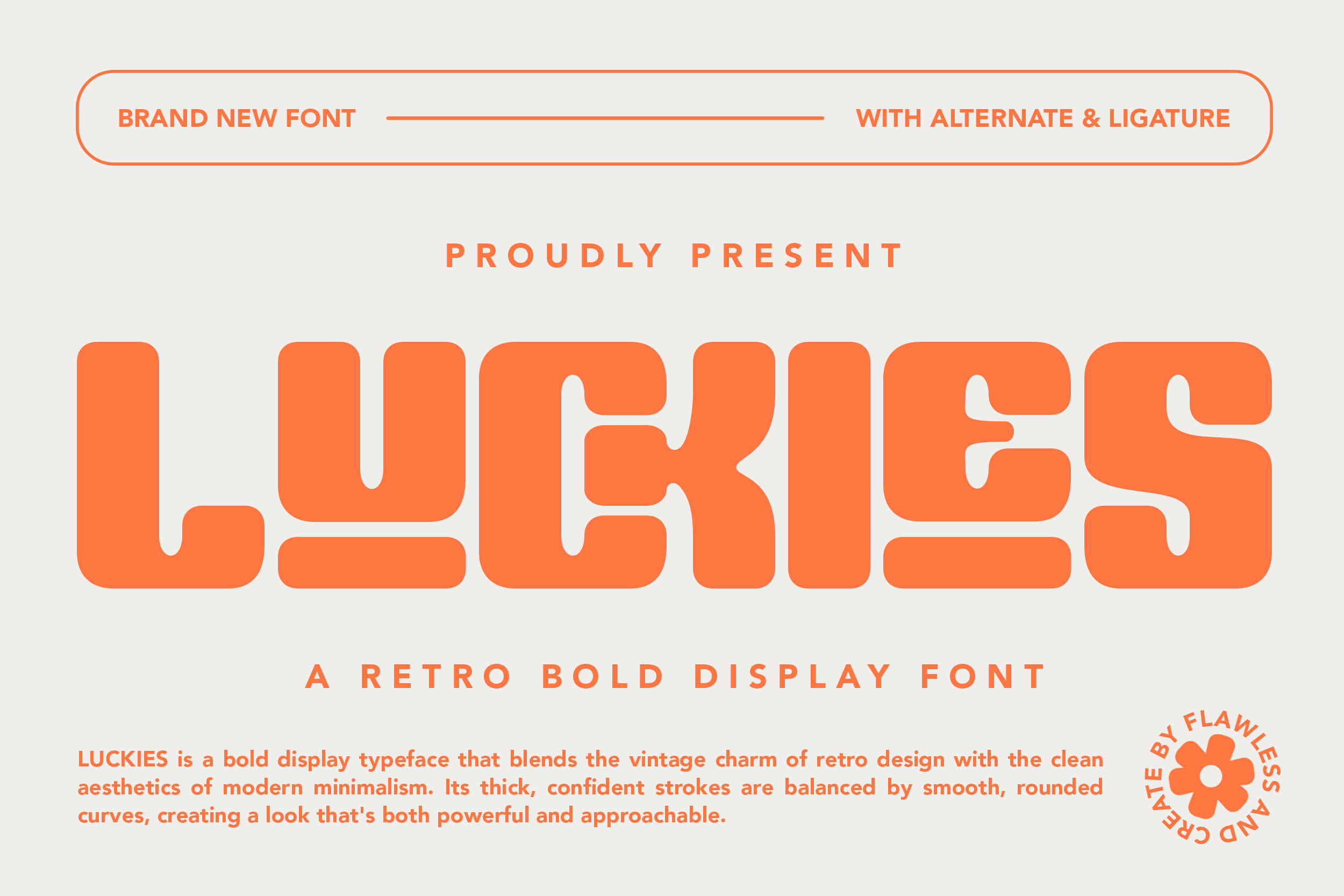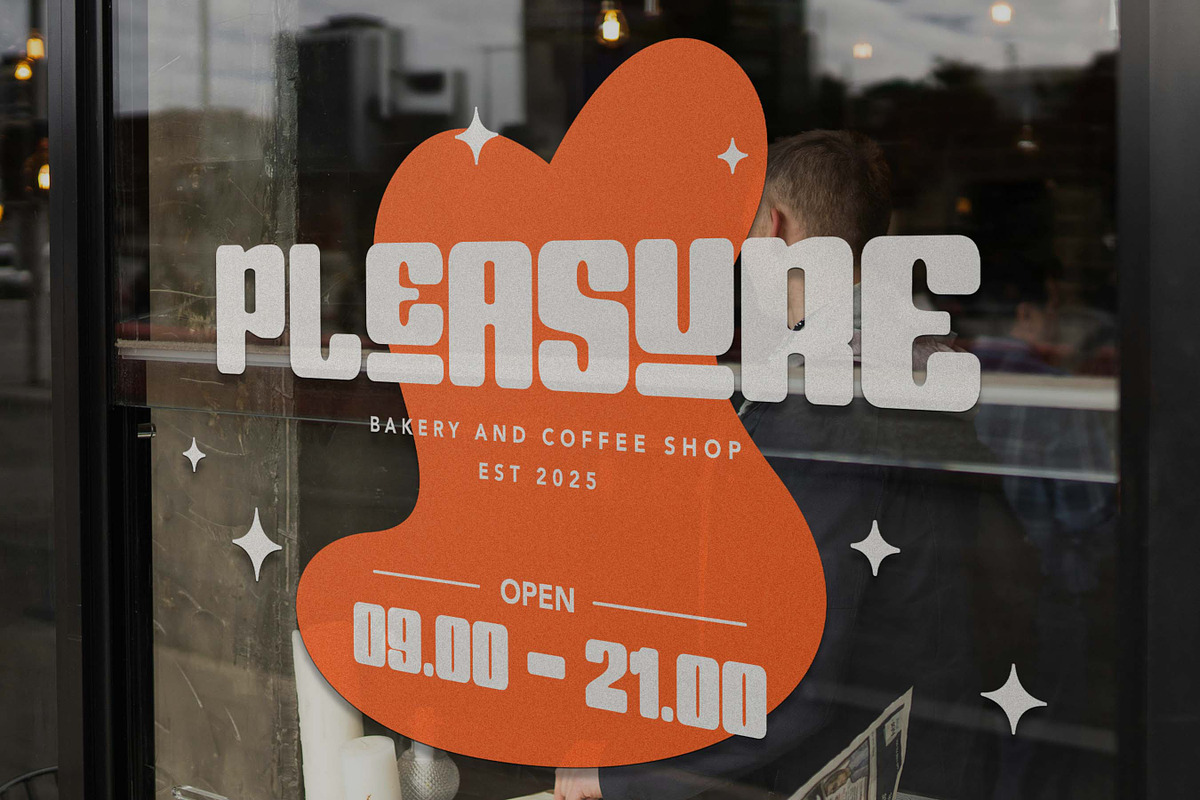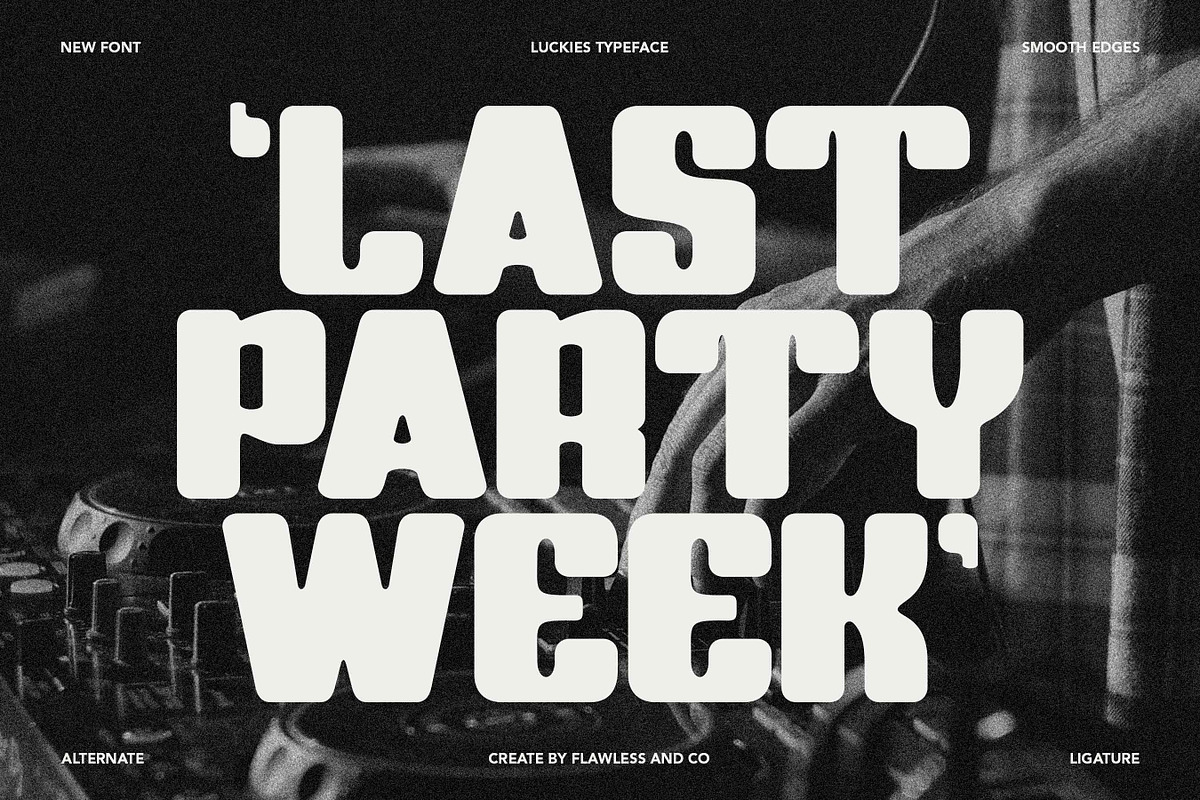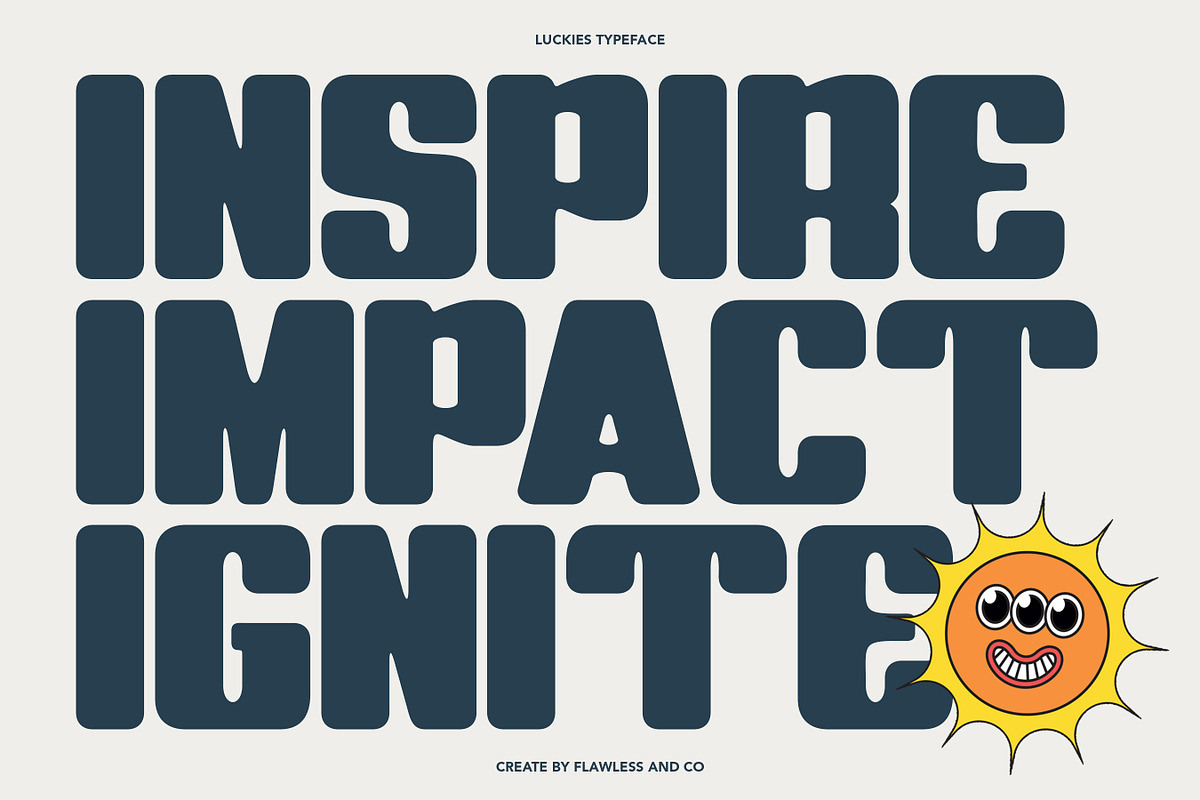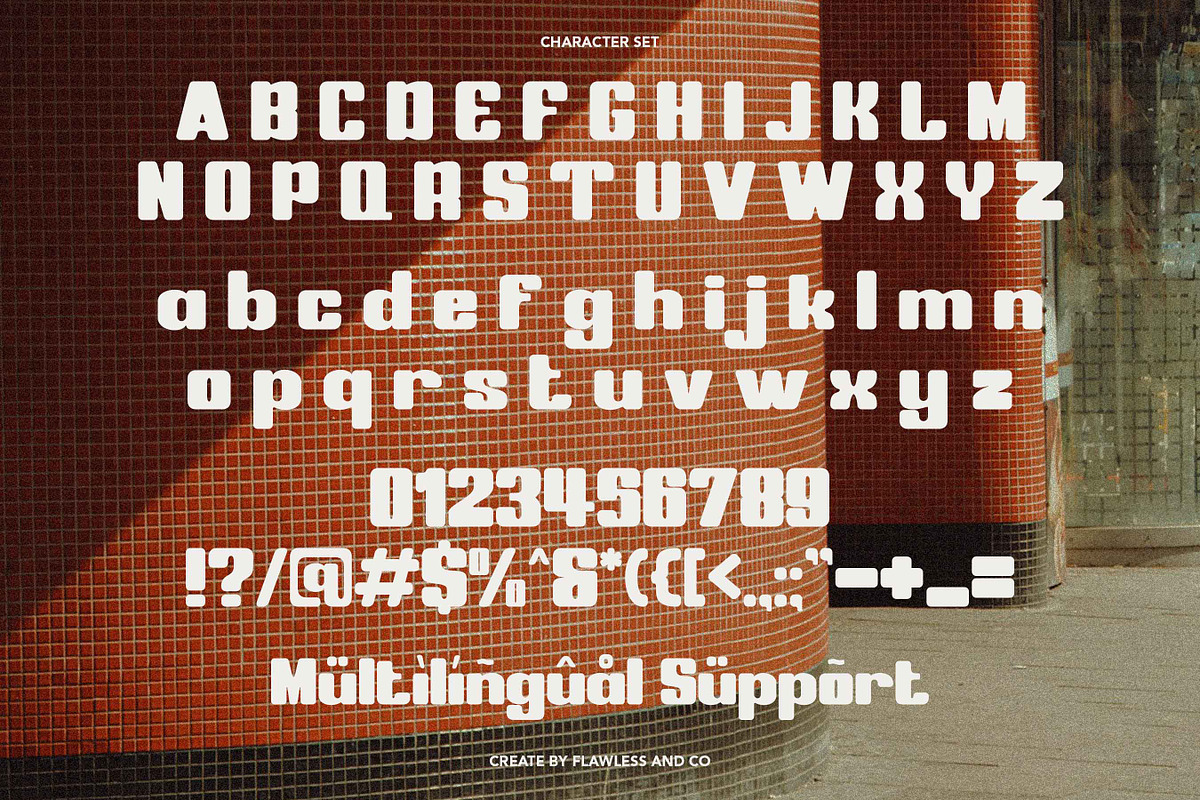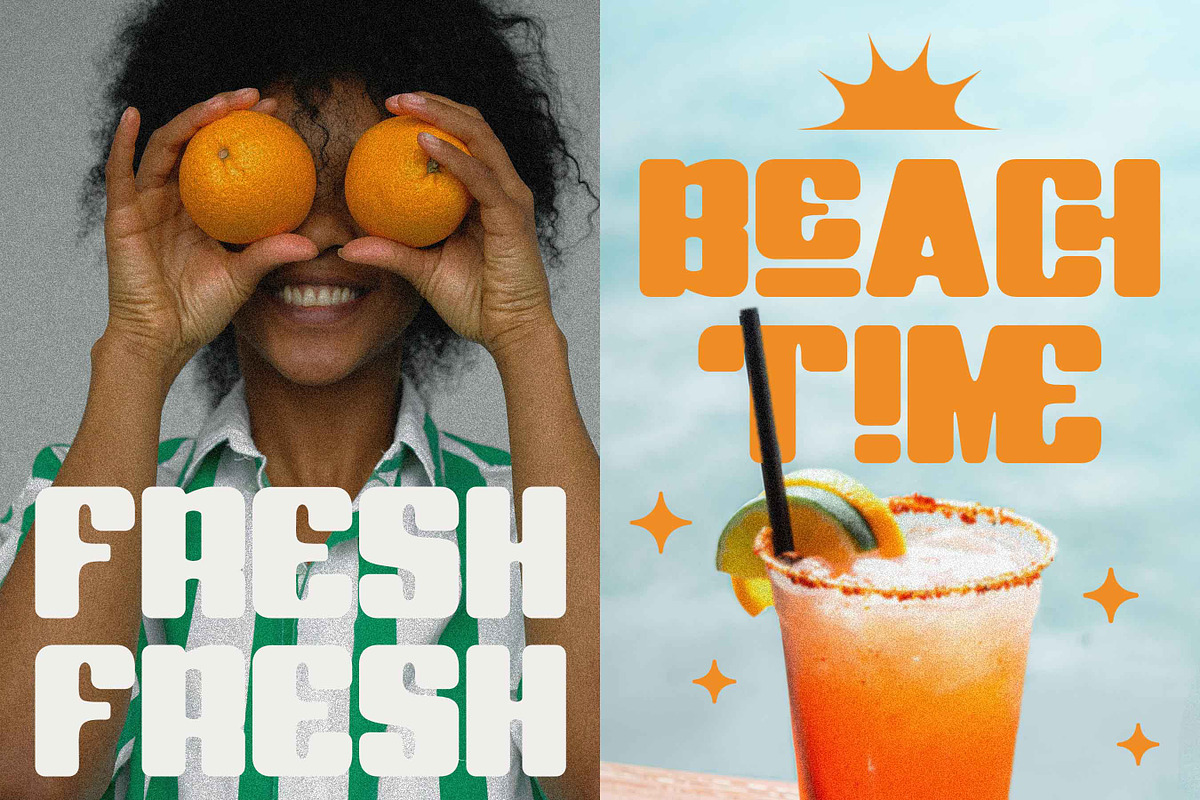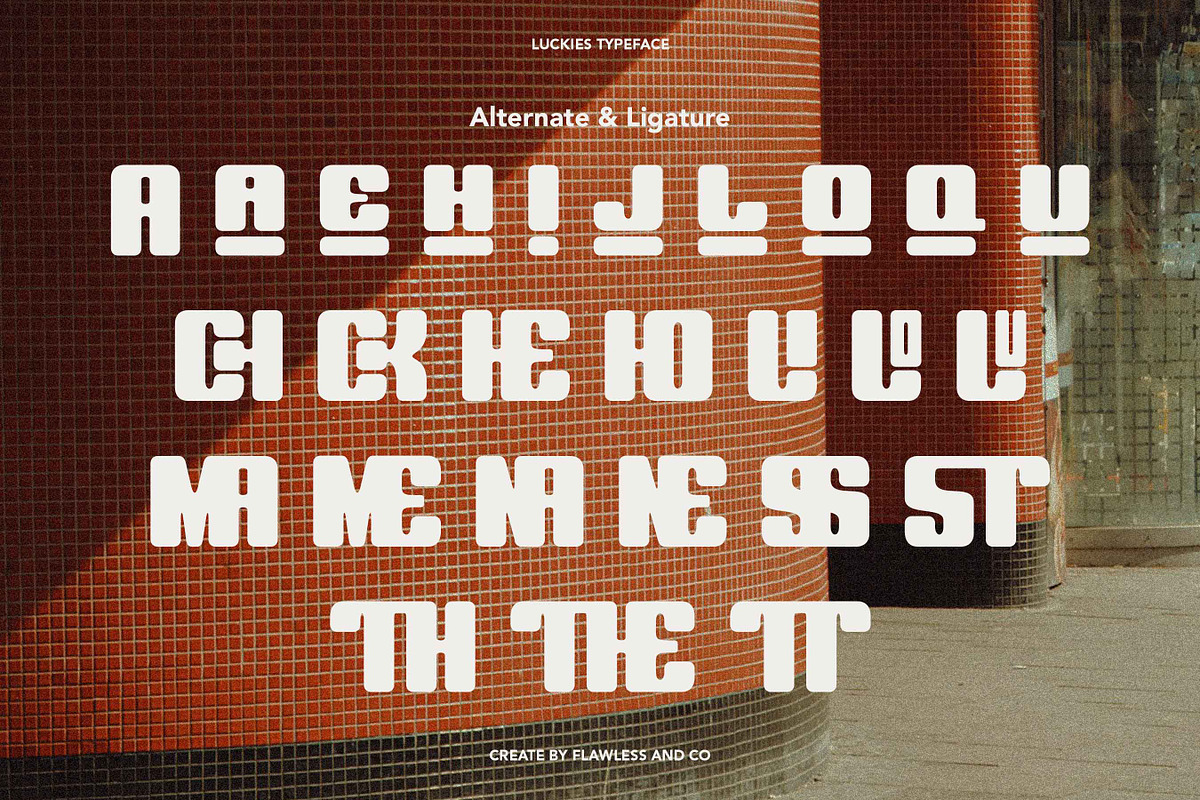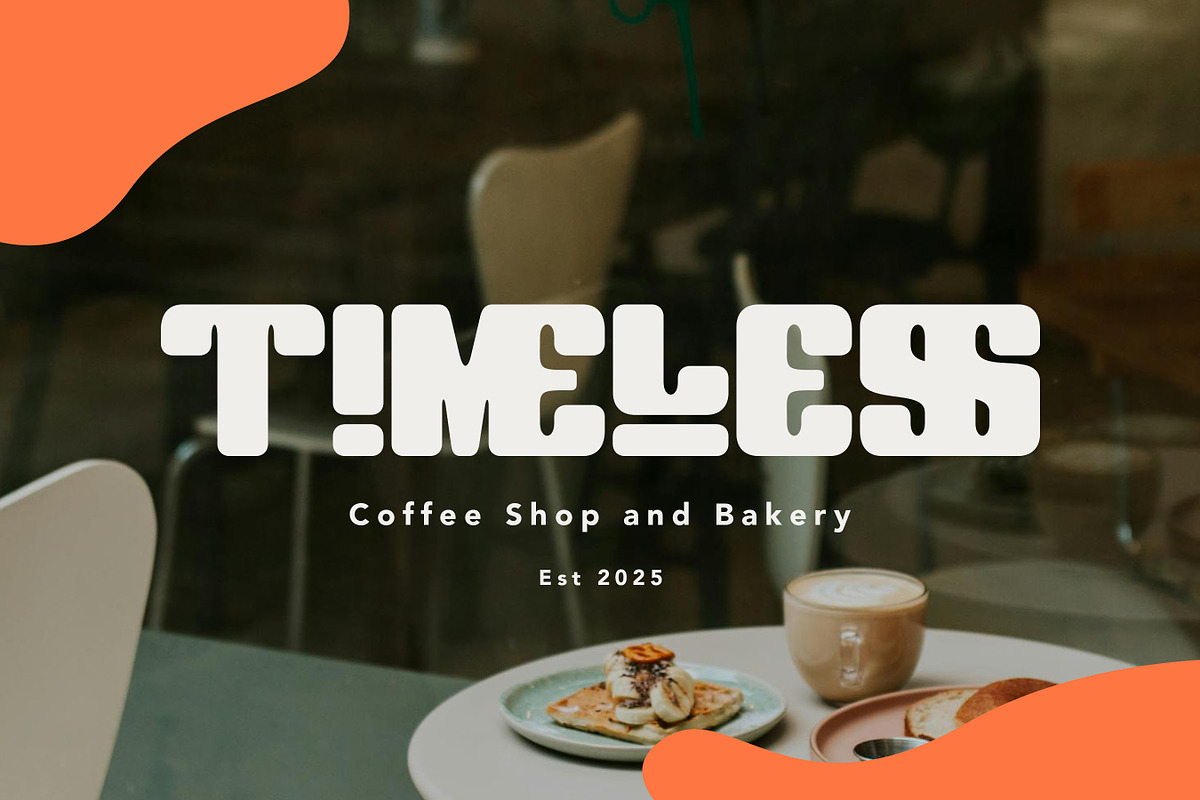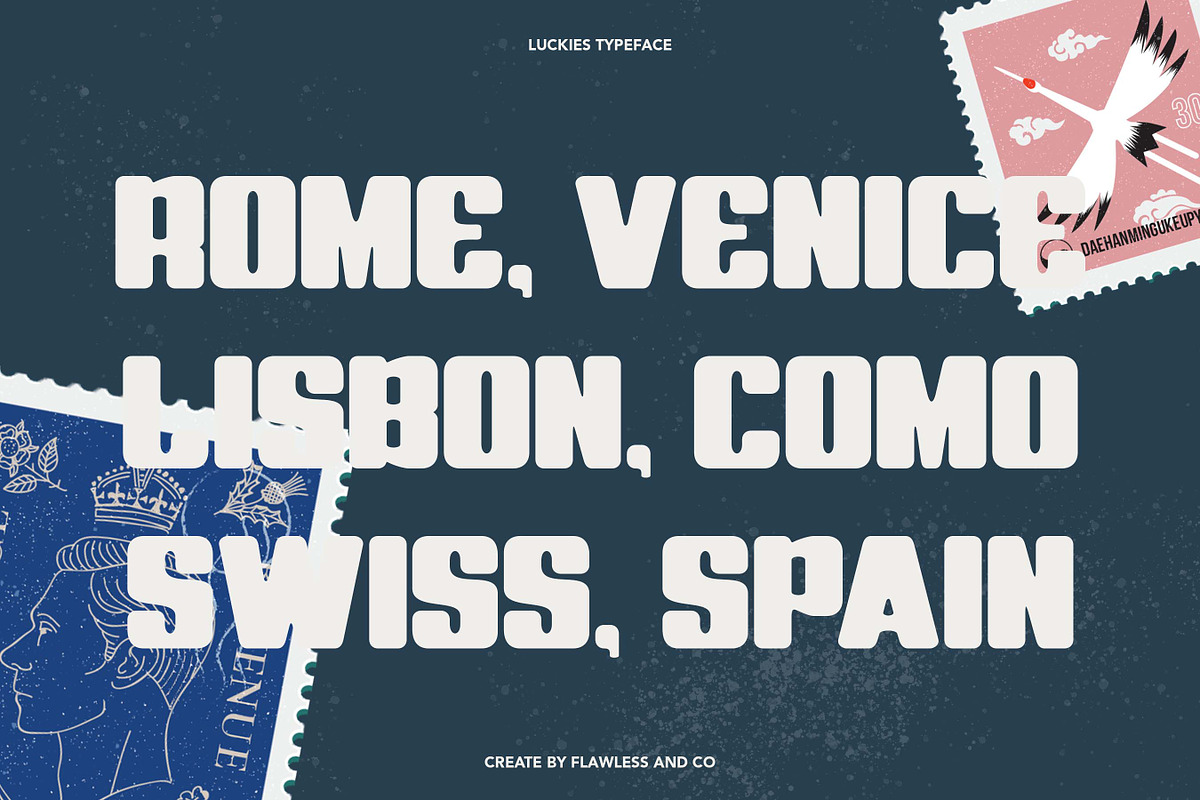
Luckies - Retro Display Font
LUCKIES - Retro Bold Display Font
LUCKIES is a bold display typeface that blends the vintage charm of retro design with the clean aesthetics of modern minimalism. Its thick, confident strokes are balanced by smooth, rounded curves, creating a look that’s both powerful and approachable. This font is designed to make a bold statement while keeping a friendly and nostalgic vibe — ideal for designers who want to inject personality into their branding, signage, packaging, or editorial projects. With a full set of alternates and ligatures, LUCKIES gives you creative freedom to customize your typography with ease.
Who Should Use LUCKIES?
LUCKIES is made for designers, creators, and brands who want to make a bold, retro-inspired impact with a modern edge.
This font is perfect for:
- Creative professionals seeking a playful yet powerful display type
- Branding studios crafting bold, memorable visual identities
- Food & beverage businesses looking for fun, eye-catching packaging
- Café, restaurant, or bakery owners wanting a nostalgic yet clean look
- Apparel and merchandise brands that embrace retro aesthetics
- Social media content creators who need stylish, scroll-stopping typography
Whether you're working on a vintage campaign or a modern throwback, LUCKIES gives you the punch you need with the charm you love.
A Must-Have Font for Brand and Logo Creators and Designers
LUCKIES is the perfect choice for anyone looking to craft bold, retro-inspired branding with a modern twist. Its unique character makes logos unforgettable and visual identities stand out.
Why Choose LUCKIES for "Brand and Logo" Projects?
LUCKIES brings bold personality and retro charm to any branding project. Its thick, geometric shapes and unique ligatures make every logo instantly recognizable and full of character. Whether you're crafting vintage-inspired identities or playful modern visuals, LUCKIES helps your brand stand out with confidence and clarity.
SUITABLE FOR:
- Brand identities and logo design
- Retro-themed product packaging
- Bold headline and poster layouts
- Food & beverage branding (cafés, diners, bakeries)
- Creative advertising & marketing materials
- Apparel and merchandise design
- Fun editorial & magazine titles